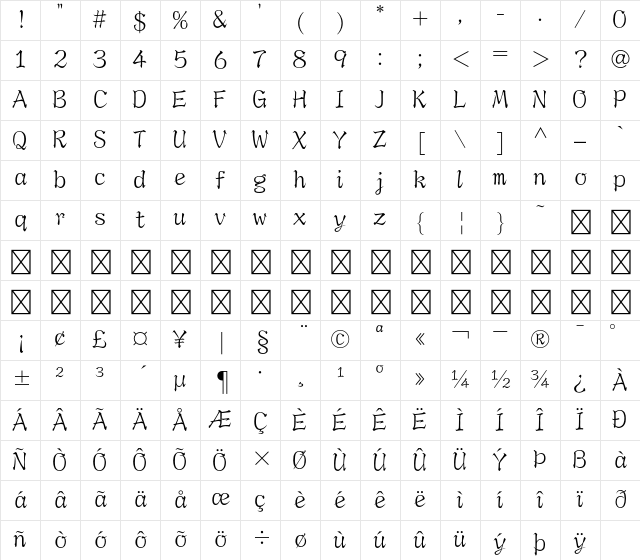
A-OTF Kakushin Gyousho Std L
Style: L
Design Context for A-OTF Kakushin Gyousho Std
A-OTF Kakushin Gyousho Std is a composed and adaptable typeface that performs quietly and consistently across a wide range of design contexts.